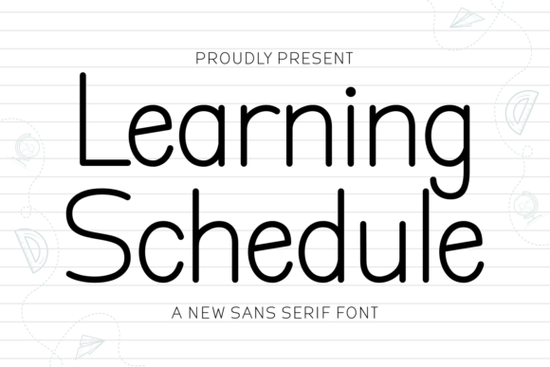
If you're creating back-to-school printables, classroom posters, or children’s activity books, the right font can make your designs feel warm, inviting, and age-appropriate. That’s where Learning Schedule comes in a friendly sans serif typeface with a handwritten touch and playful doodle accents like paper airplanes, protractors, and pencils in soft light blue. It’s not just a font; it’s a design shortcut for educators, crafters, and small business owners who want to add personality without starting from scratch.
Unlike rigid, corporate-style sans serifs, Learning Schedule balances legibility with charm. The letters are clear enough for young readers but carry a casual, hand-drawn energy that fits perfectly in worksheets, flashcards, or teacher welcome signs. And because those school-themed doodles are built right into the character set (often as alternates or ligatures), you don’t need to layer separate graphics just type and let the font do the work.
Who is this font best suited for?
This typeface shines in projects aimed at early learners or elementary classrooms:
- Teachers creating custom lesson plans, behavior charts, or homework trackers
- Print-on-demand sellers designing themed planners, wall art, or digital downloads for Etsy or Teachers Pay Teachers
- Parents and homeschoolers making personalized learning materials at home
- Graphic designers working on children’s book layouts or educational branding
Because it’s a sans serif font with handwritten flair, it avoids the stiffness of traditional educational fonts while still maintaining readability a key detail when your audience includes emerging readers.
How does it compare to other playful sans serifs?
Not all kid-friendly fonts strike the same balance. Some lean too cartoony, while others feel overly minimal. Learning Schedule sits comfortably in the middle: approachable but not childish, structured but not sterile. If you’ve used fonts like Clagio, you’ll notice a similar warmth but Clagio leans more toward modern handwriting, whereas Learning Schedule includes thematic illustrations baked into its design. Both work well for youthful projects, but Learning Schedule offers built-in visual storytelling through its doodle elements.
Practical uses beyond the classroom
While it’s timed for back-to-school season, this font isn’t limited to August and September. Think year-round applications:
- Tutoring center flyers that feel welcoming, not clinical
- Digital sticker sets for planner enthusiasts (the doodles translate beautifully to PNG cut files)
- Custom name tags or birthday party invites with a “school days” theme
- YouTube thumbnails or social posts for parenting or education-focused creators
The light blue doodles aren’t overpowering they complement the text rather than distract so your message stays clear even with added whimsy.
Tips for using Learning Schedule effectively
To get the most out of this font, keep a few things in mind:
- Pair it wisely. Use a clean, neutral sans serif (like Montserrat or Open Sans) for body text or headings that need high readability. Let Learning Schedule handle titles, labels, or accent text.
- Don’t overuse it. One or two lines in Learning Schedule can add charm. Full paragraphs might reduce legibility, especially for younger kids.
- Match your color palette. The built-in light blue works great on white or pastel backgrounds. For darker themes, consider converting the doodles to outlines and recoloring them manually.
Ready to try it? You can find Learning Schedule on Creative Fabrica, often bundled with other educational design assets like clipart or templates which makes it even more valuable if you’re building full resource kits.
- Is my project aimed at children, teachers, or families?
- Do I need built-in illustrations to save design time?
- Will this font enhance clarity or clutter my layout?
If you answered “yes” to the first two and “enhance” to the last, Learning Schedule could be a smart, time-saving addition to your creative toolkit this school year.